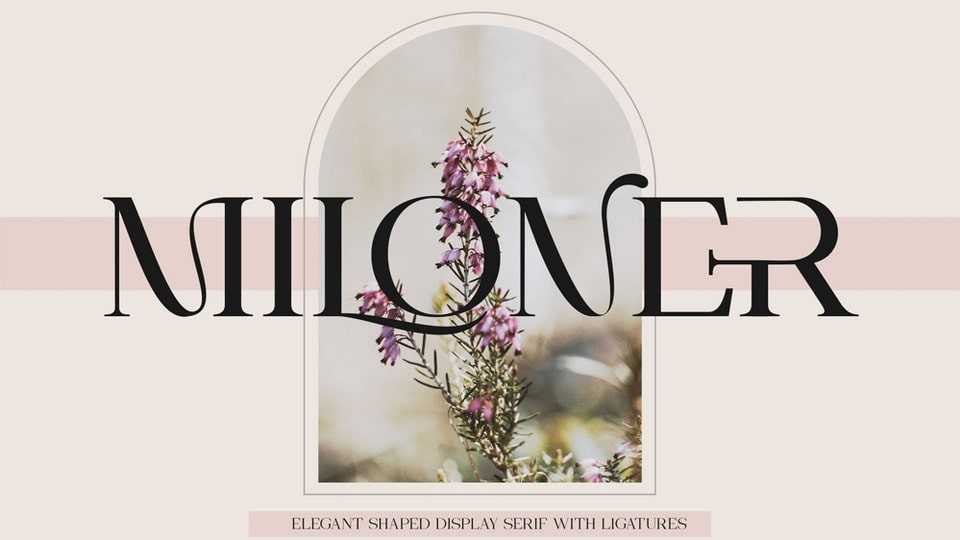
Download Miloner font, a serif typeface that a unique design and is sure to steal the eye of the design target audience. Besides being unique, the Miloner font also has a luxury simple character that makes the design charming and luxurious.